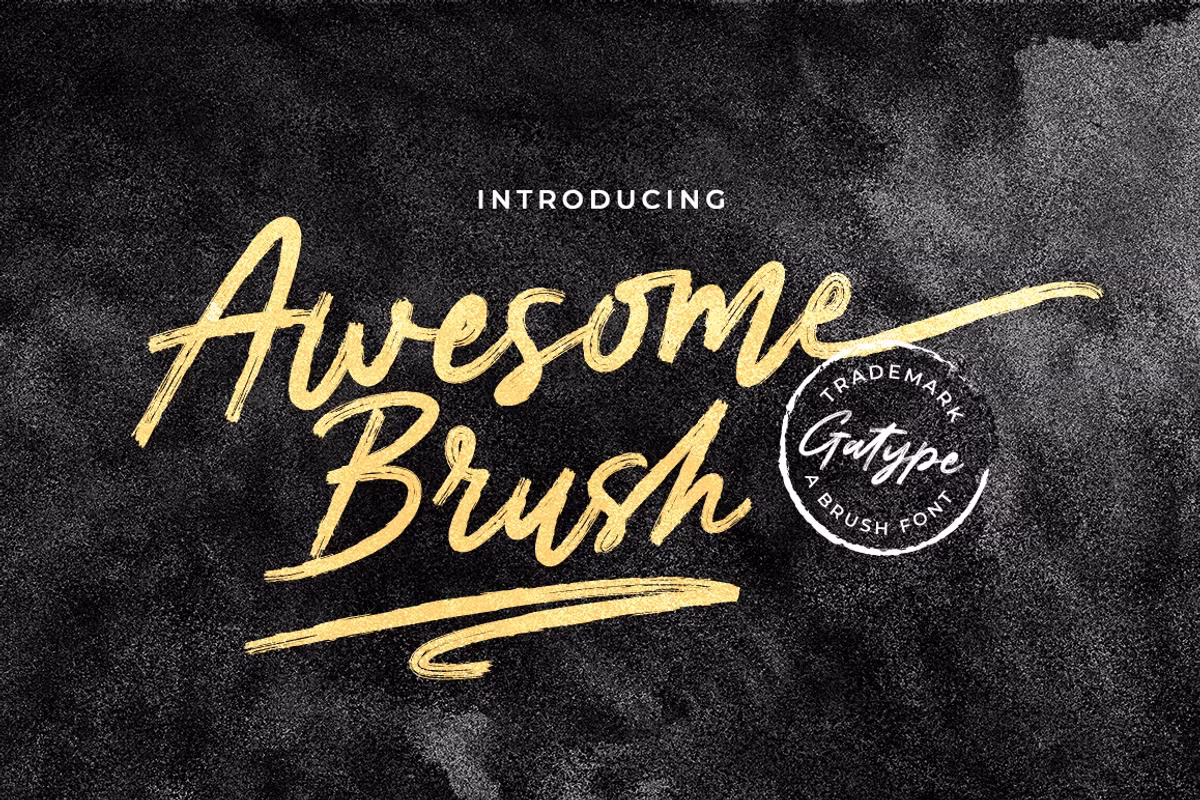
Awesome Brush Font Free Download is a bold, expressive brush script typeface that brings an organic, hand-painted feel to your designs. With its dynamic, fluid strokes and energetic style, Awesome Brush is perfect for logos, branding, posters, social media graphics, and any project that needs a personal, artistic touch.
The font features bold, brush-style lettering with a natural, slightly rough texture that adds a handcrafted aesthetic. It includes uppercase and lowercase letters, numerals, punctuation, and stylistic alternates to give your designs a custom, hand-lettered feel.
Whether you're designing a creative brand, a promotional piece, or an energetic event poster, Awesome Brush Font Free Download adds boldness and creativity to your typography. Feel free to use it in personal or mockup projects, and be sure to purchase the appropriate license for commercial use. Add a bold, expressive touch to your designs with this exciting brush script font.